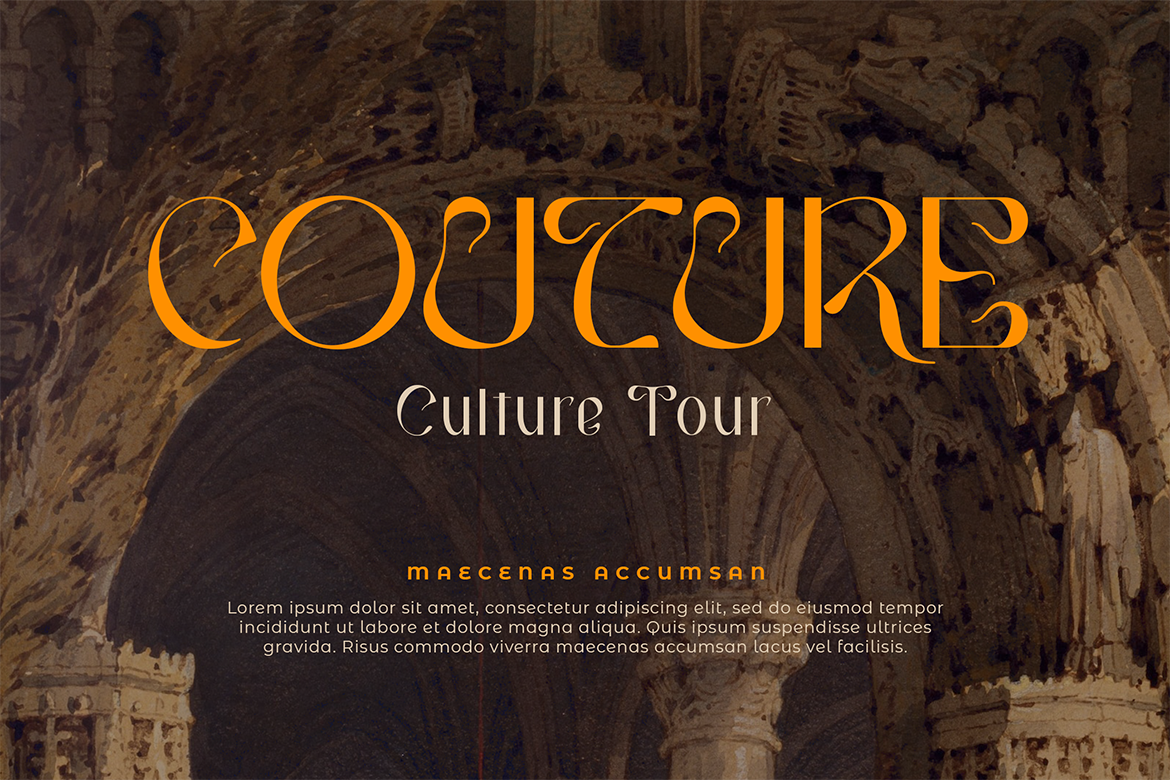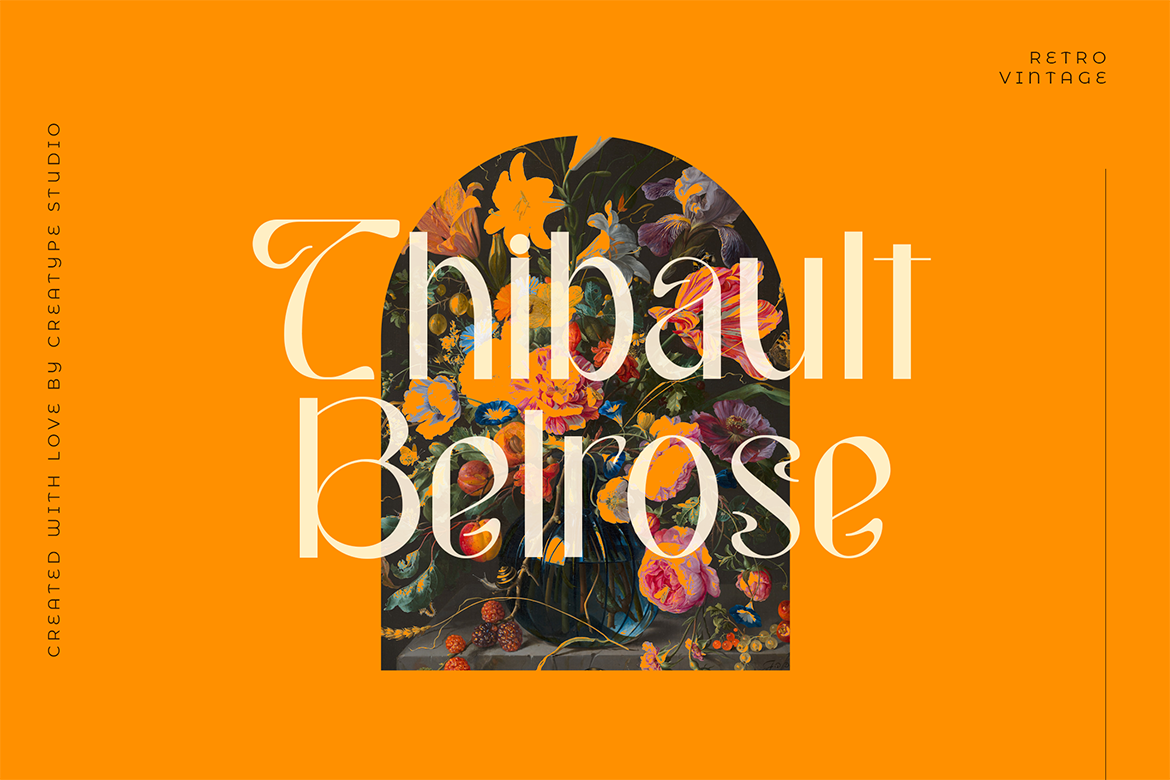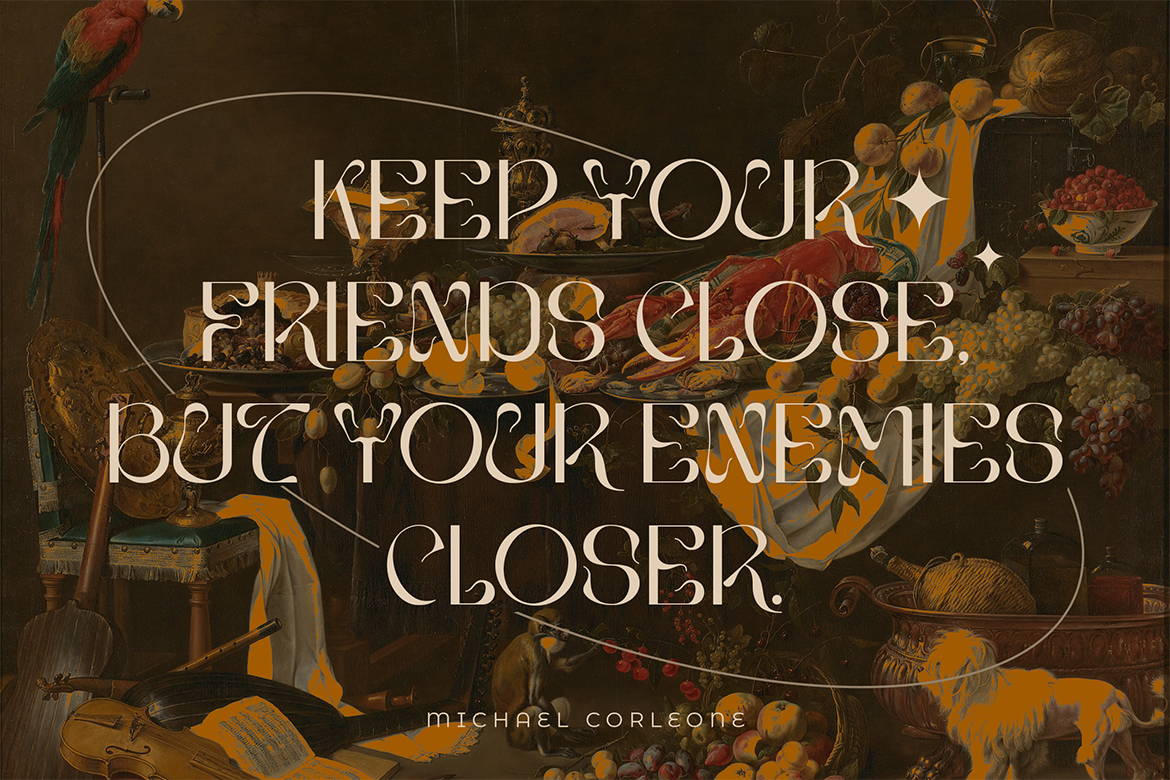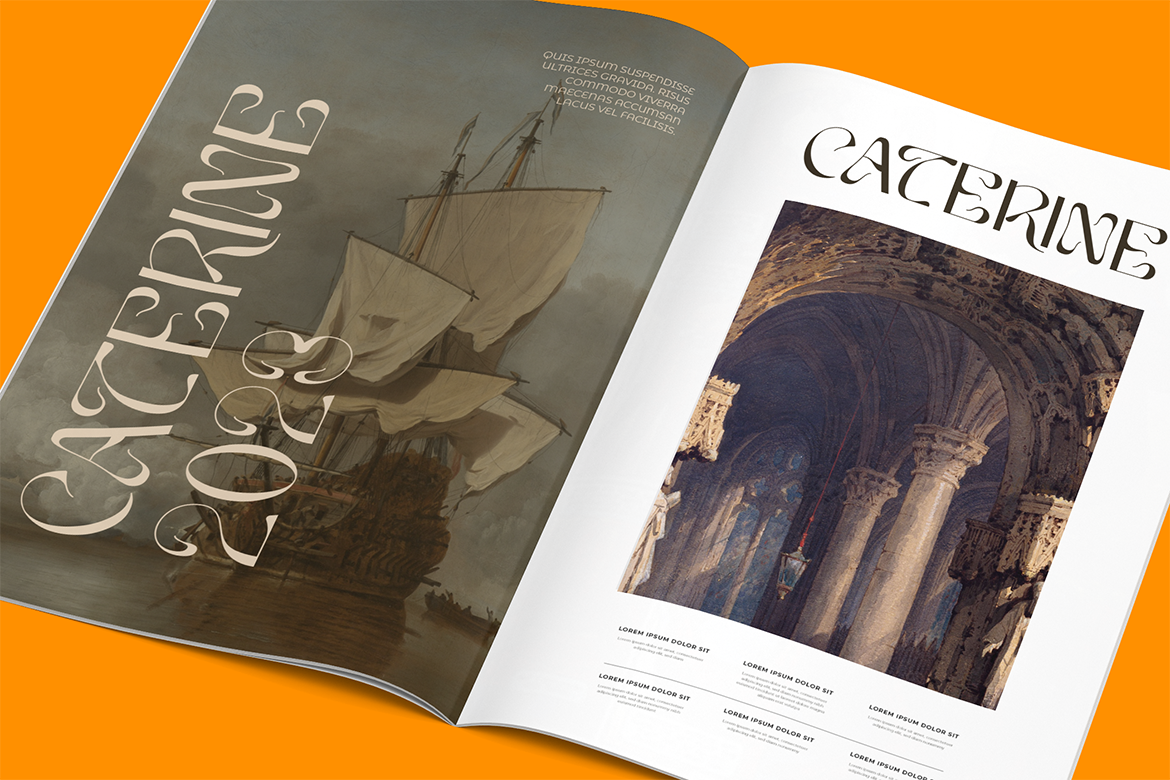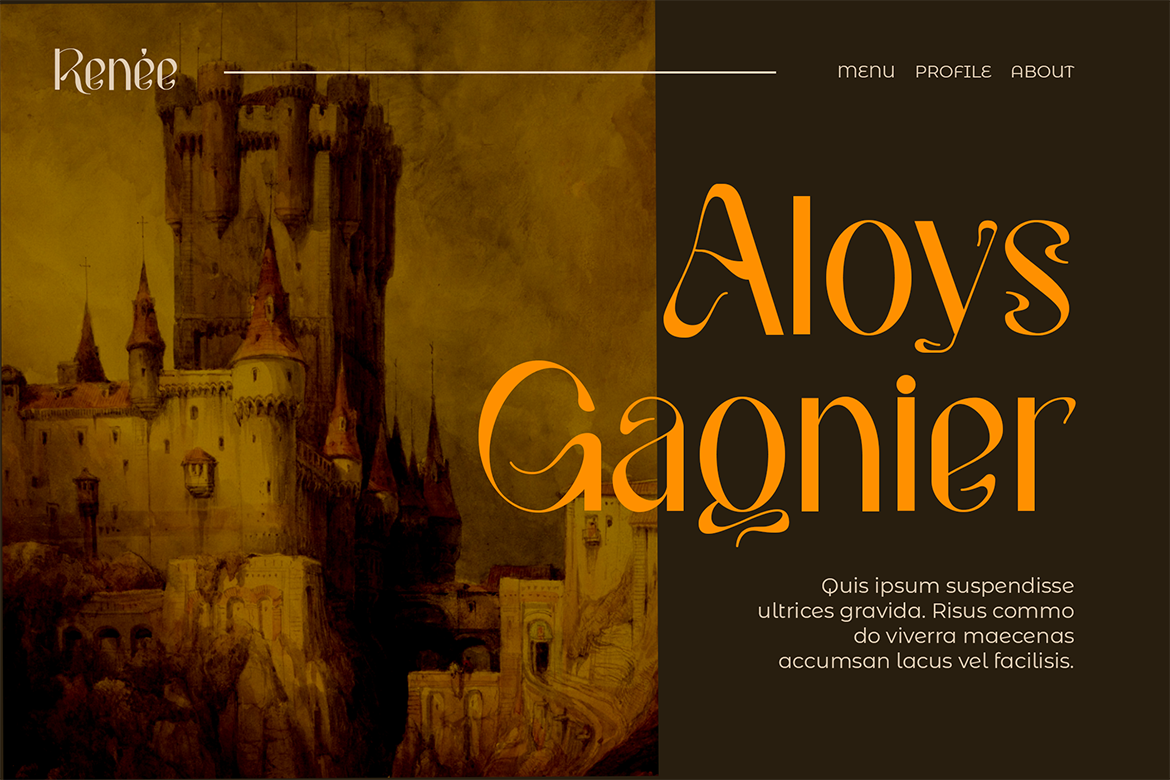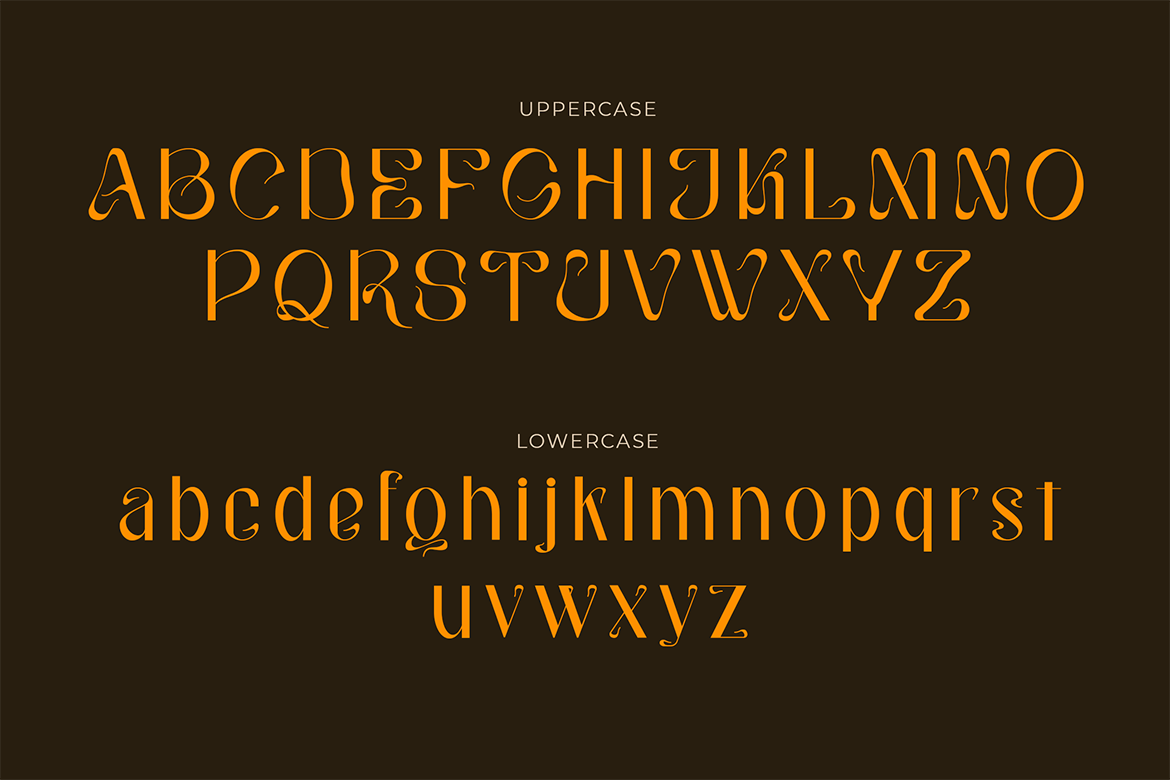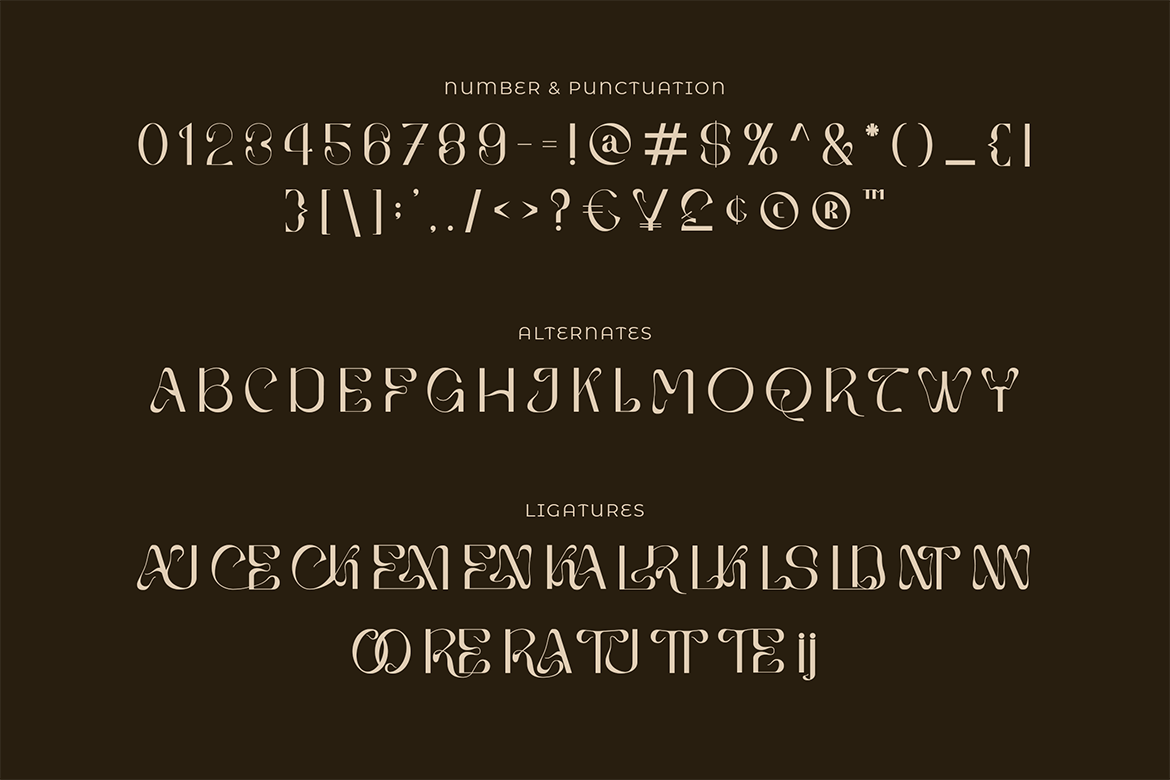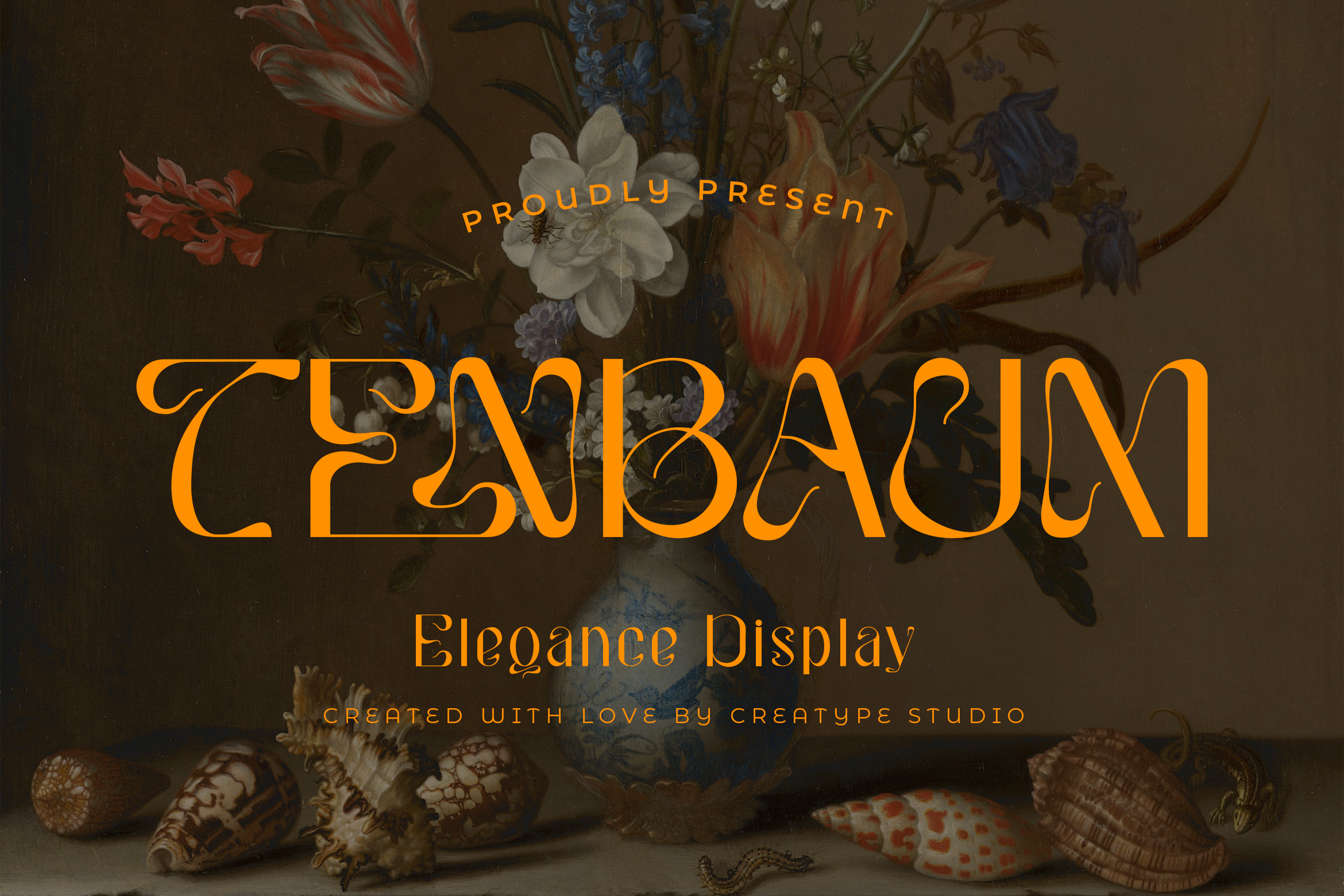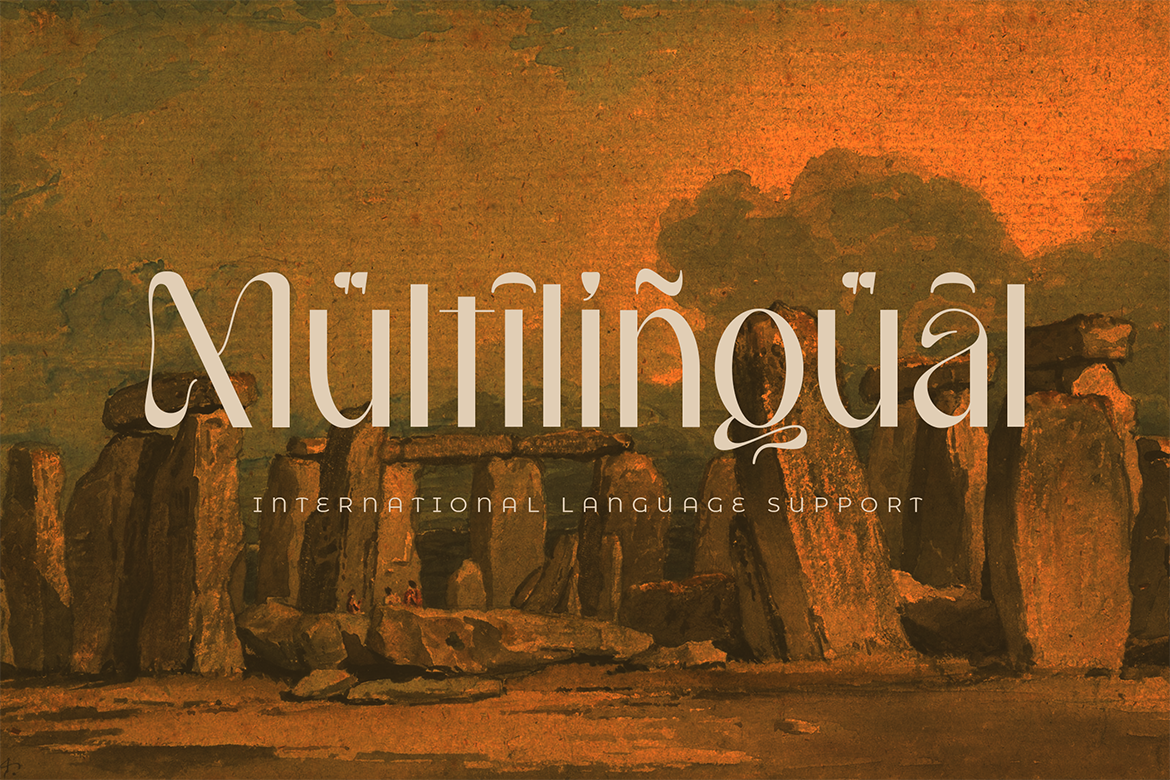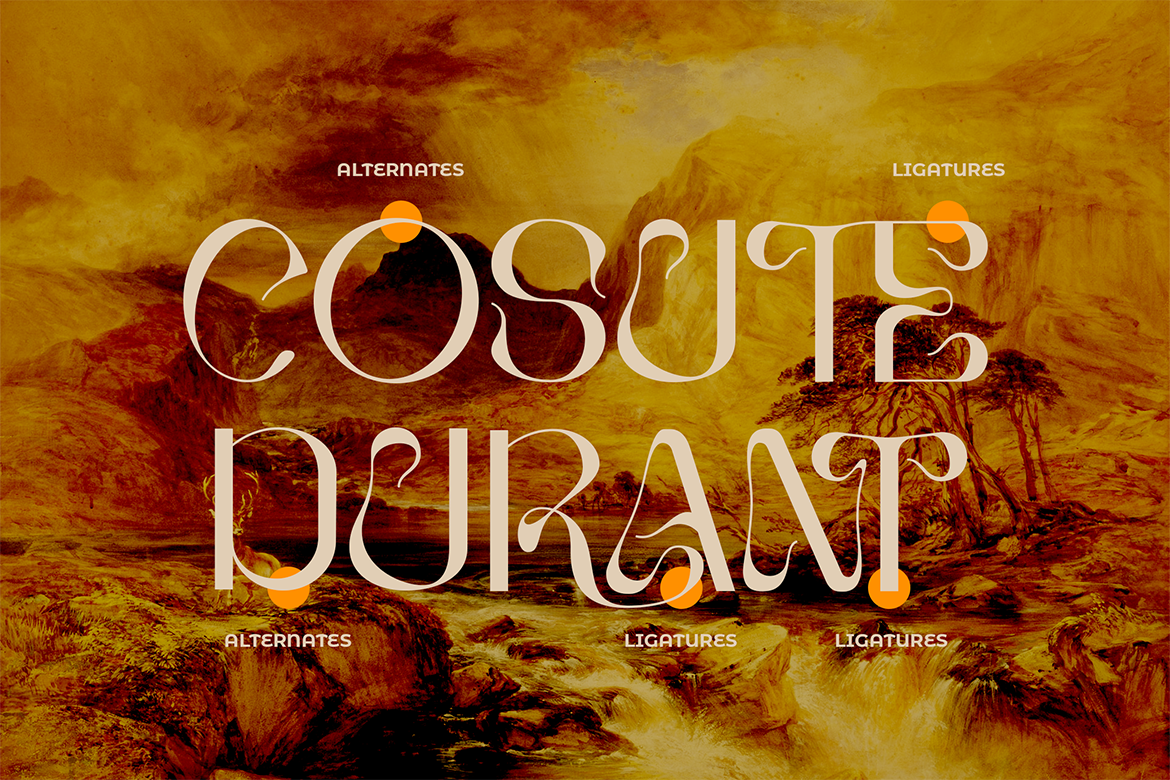
Tenbaum, the display typeface that flawlessly blends quirky elements with refined elegance, creating a unique visual language for your brand.
Tenbaum is perfect for branding projects, logos, wedding designs, social media posts, advertisements, product packaging, product designs, label, photography, watermark, invitation, stationery, and any projects that need handwriting taste.
Tenbaum Elegance Display